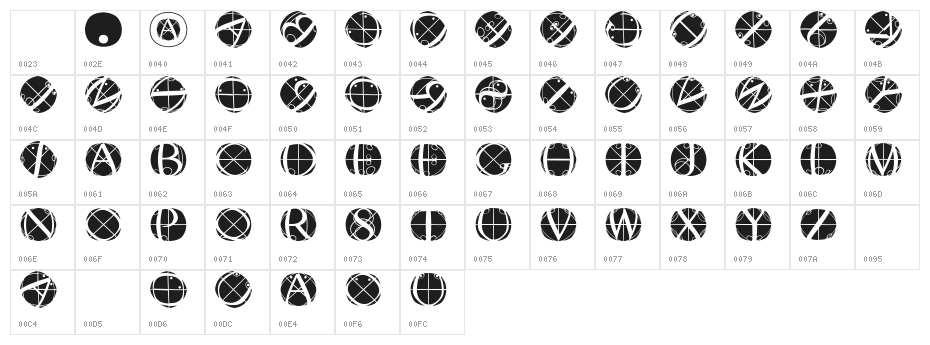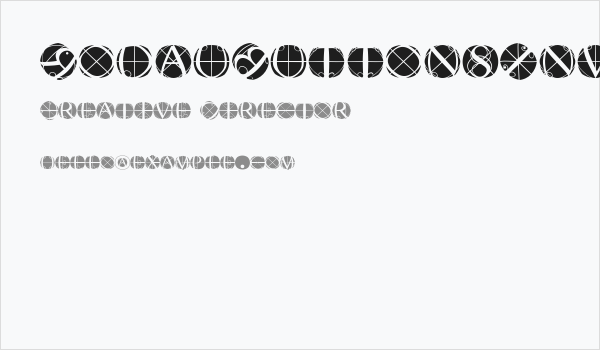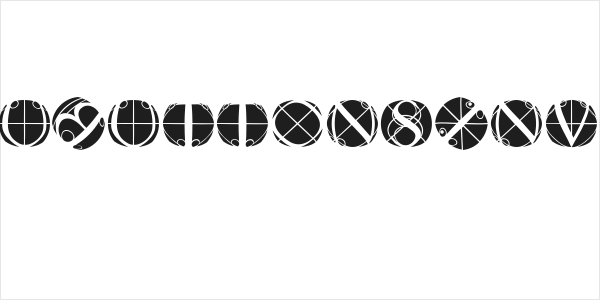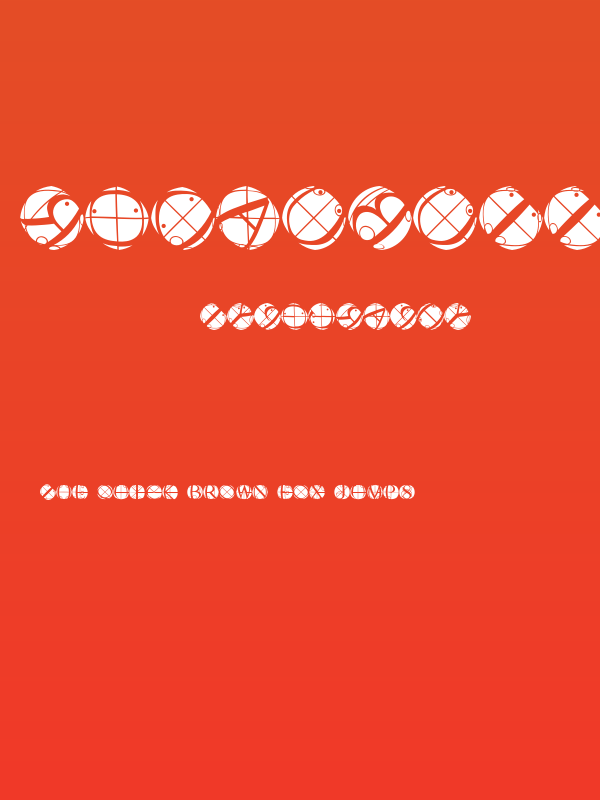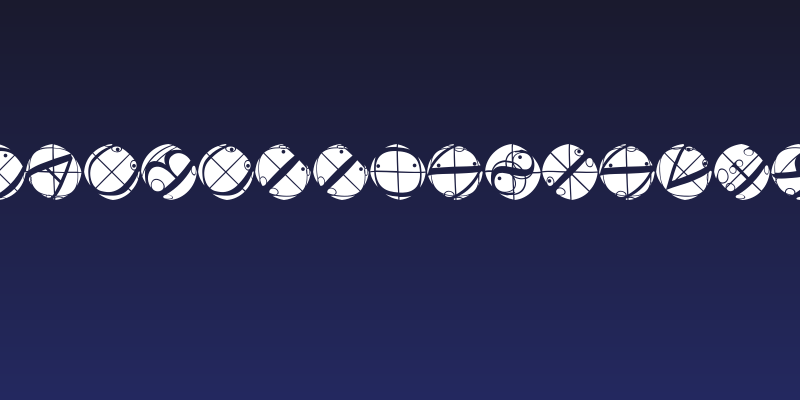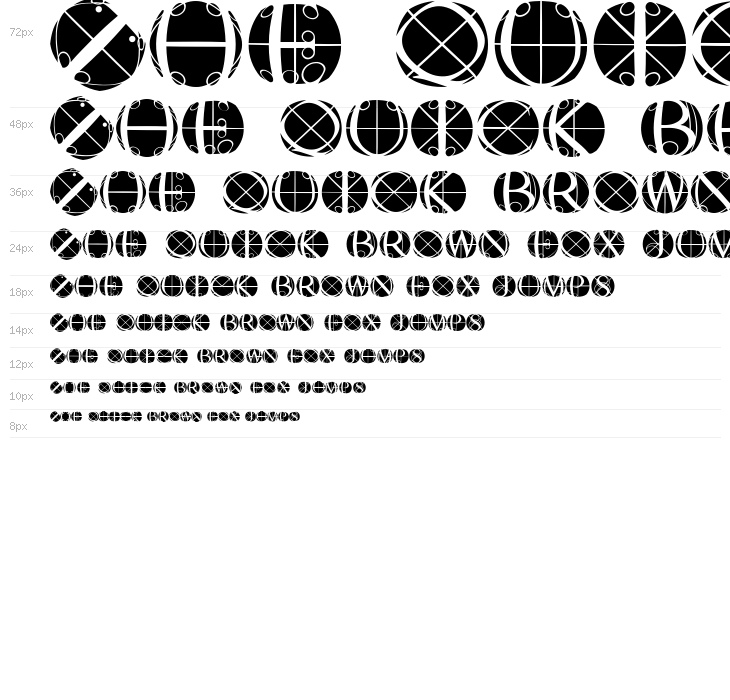
RodauButtonsInverse Font
RodauButtonsInverse Description
This font features a unique and intricate design where each character is enclosed within a circular shape, creating a striking visual effect. The letters are composed of geometric lines and patterns, giving them a futuristic and abstract appearance. The use of negative space within the circles adds depth and complexity to the overall look. This font is highly decorative, making it suitable for artistic and creative projects. Its bold and graphic style ensures that it stands out, making it ideal for attention-grabbing designs.
| Overall Style | Modern, Futuristic |
| Use Case | Logos, Posters, Artistic Designs |
| Proposed Projects | Ideal for logo design, album covers, posters, and any project requiring a bold, artistic touch. |